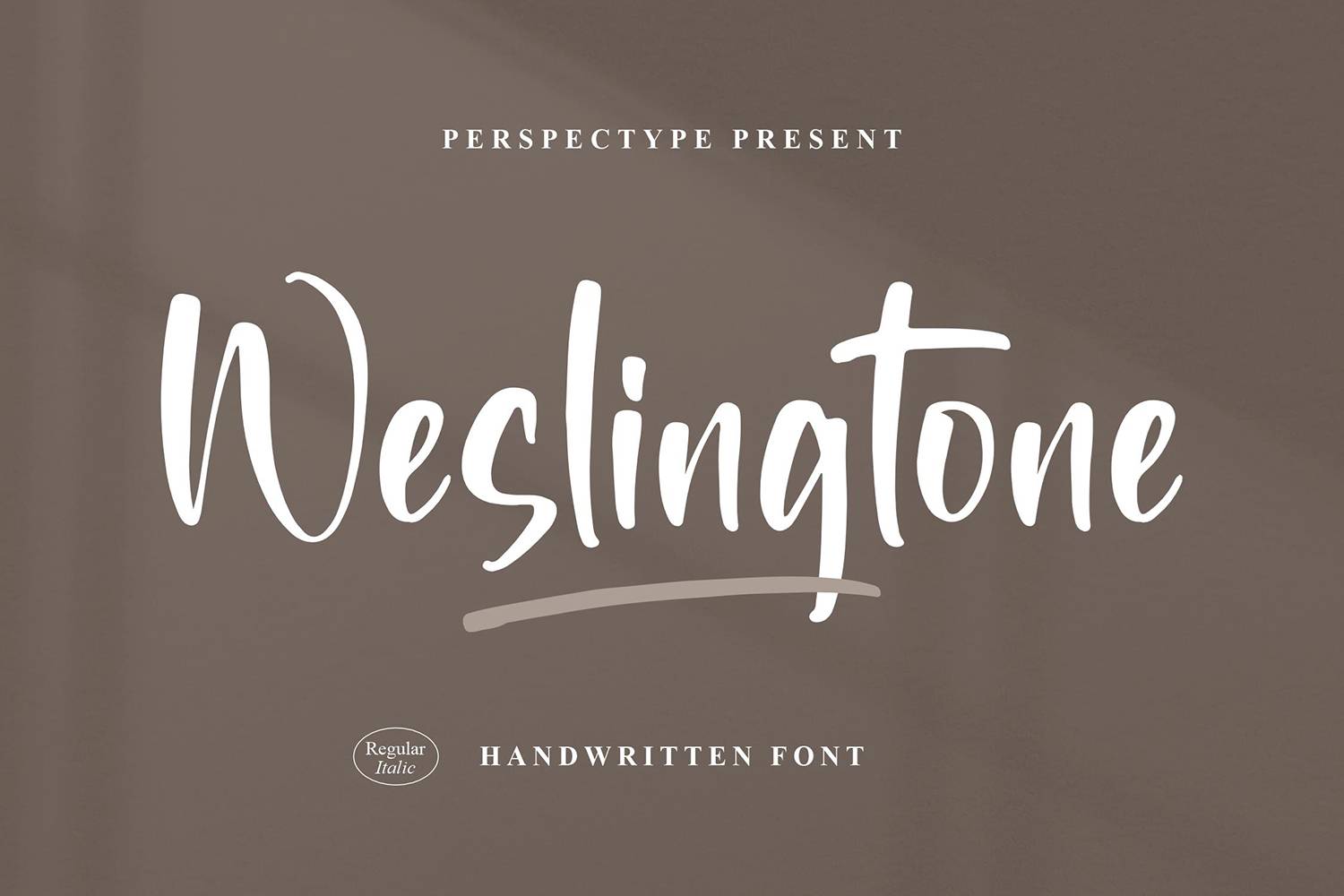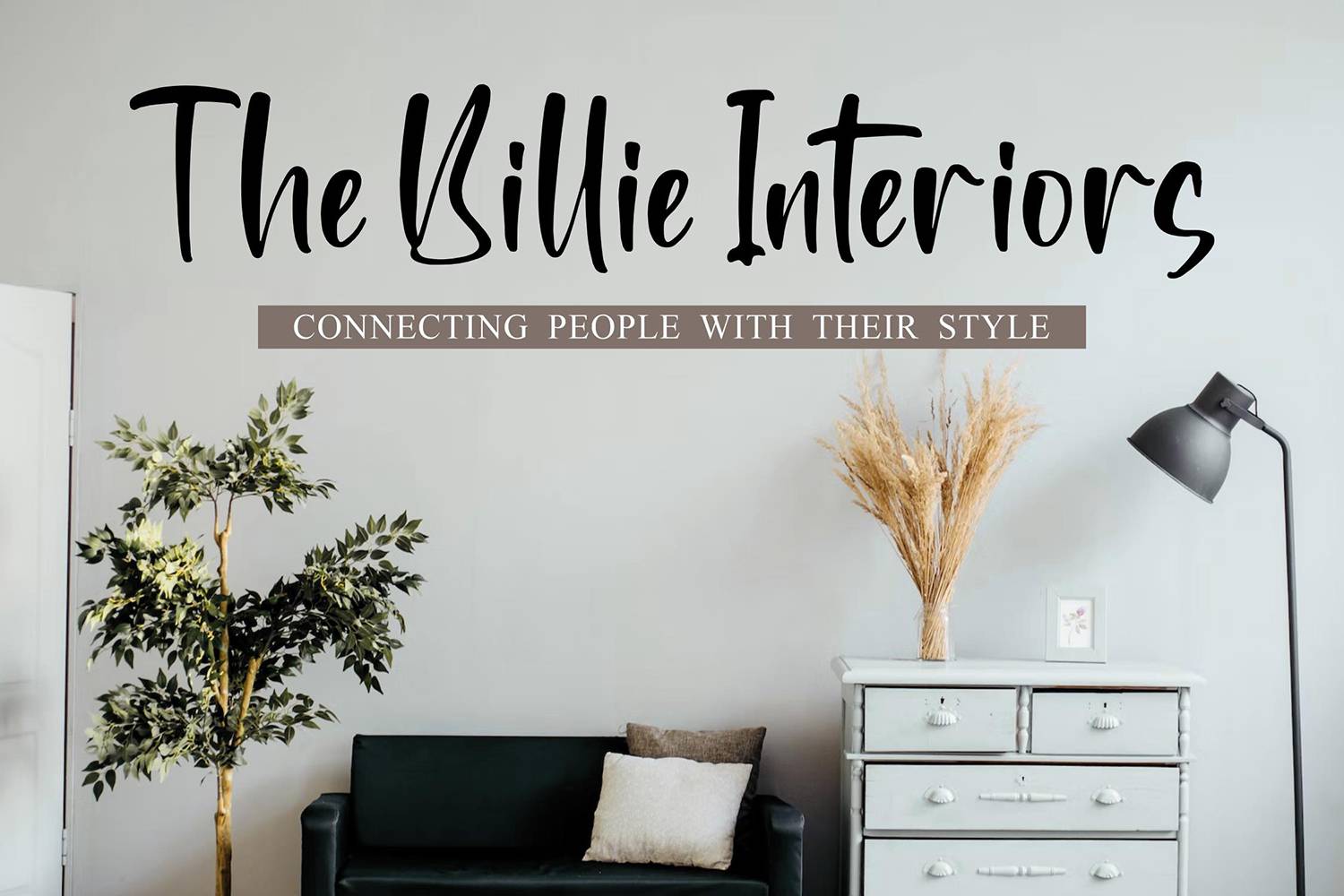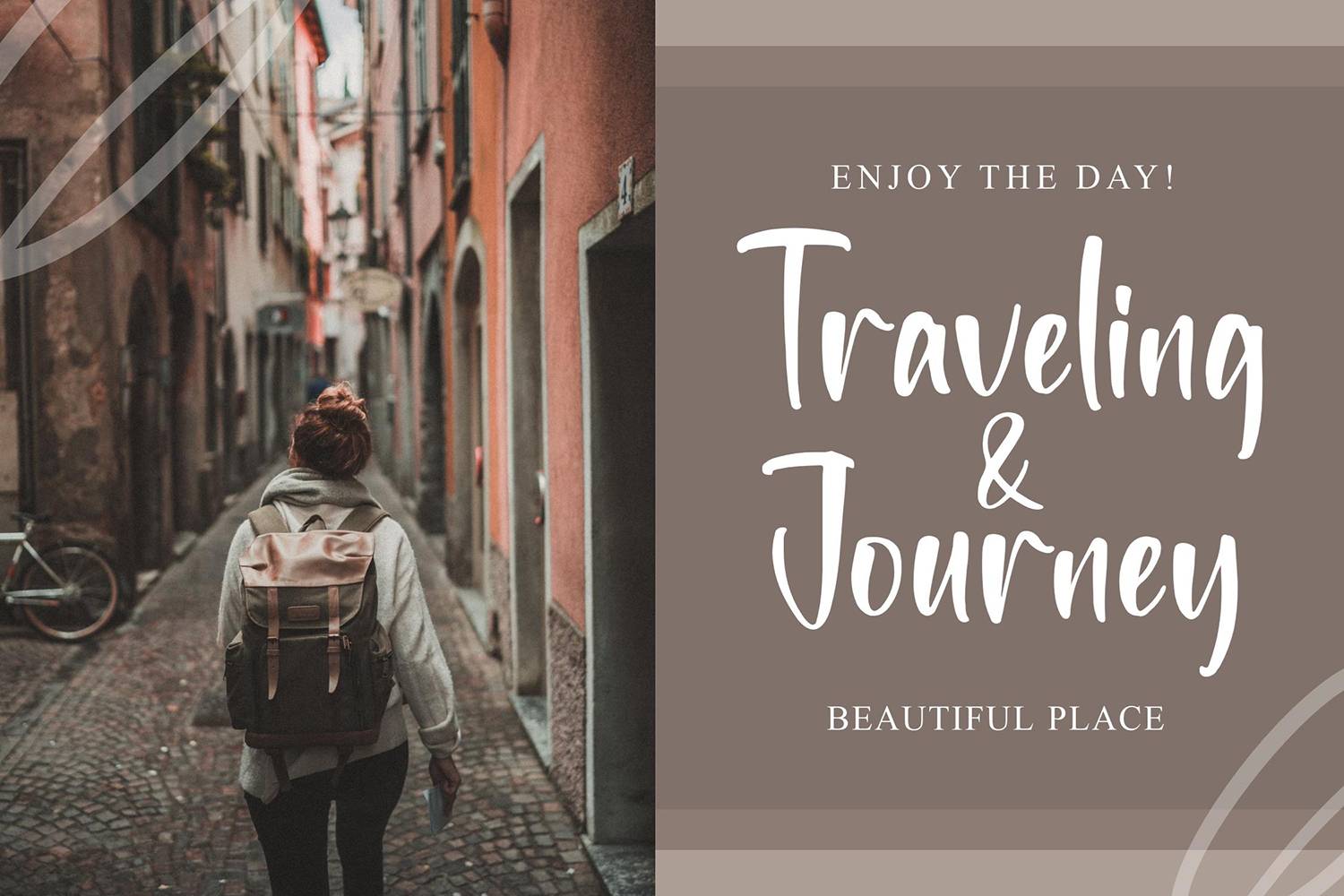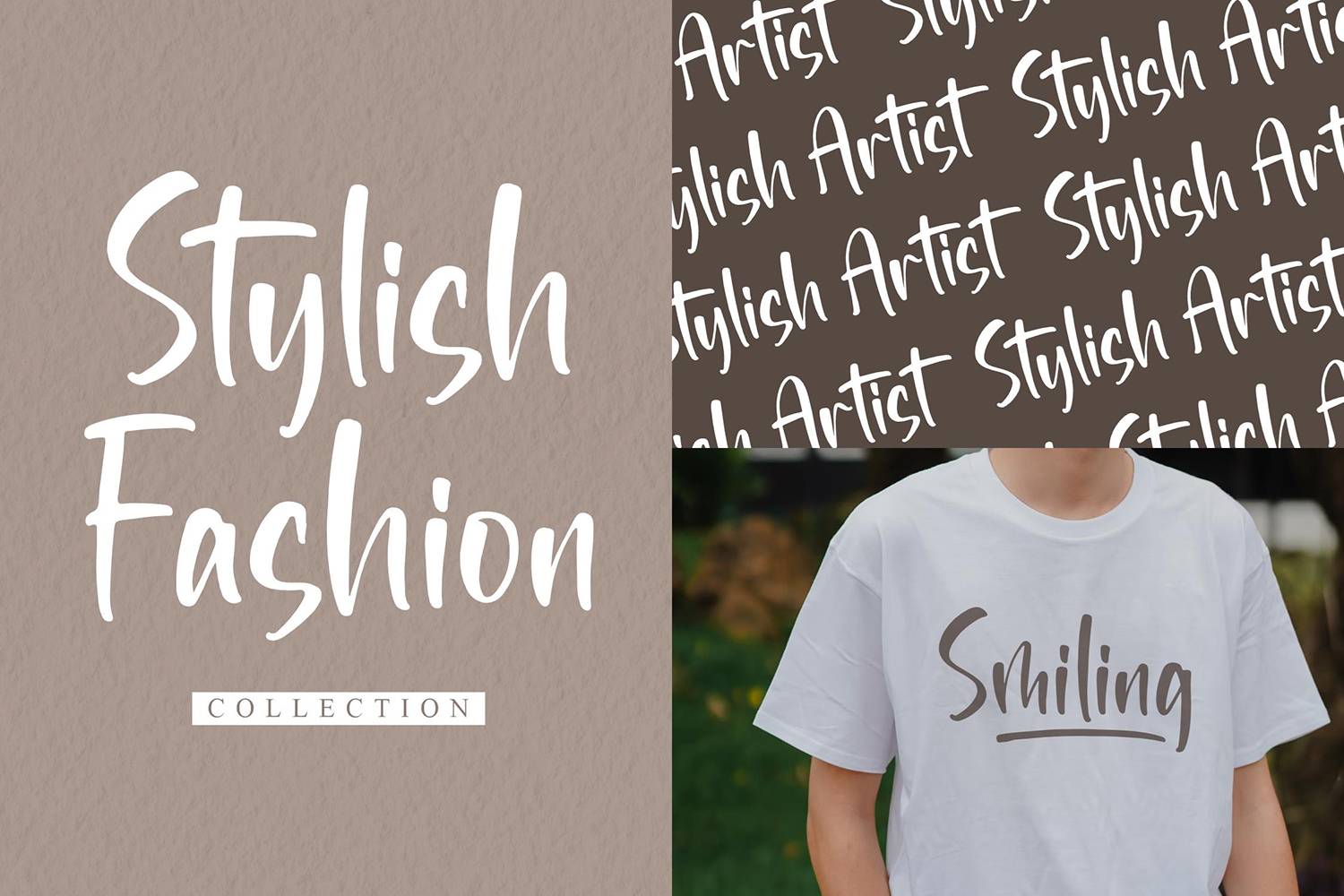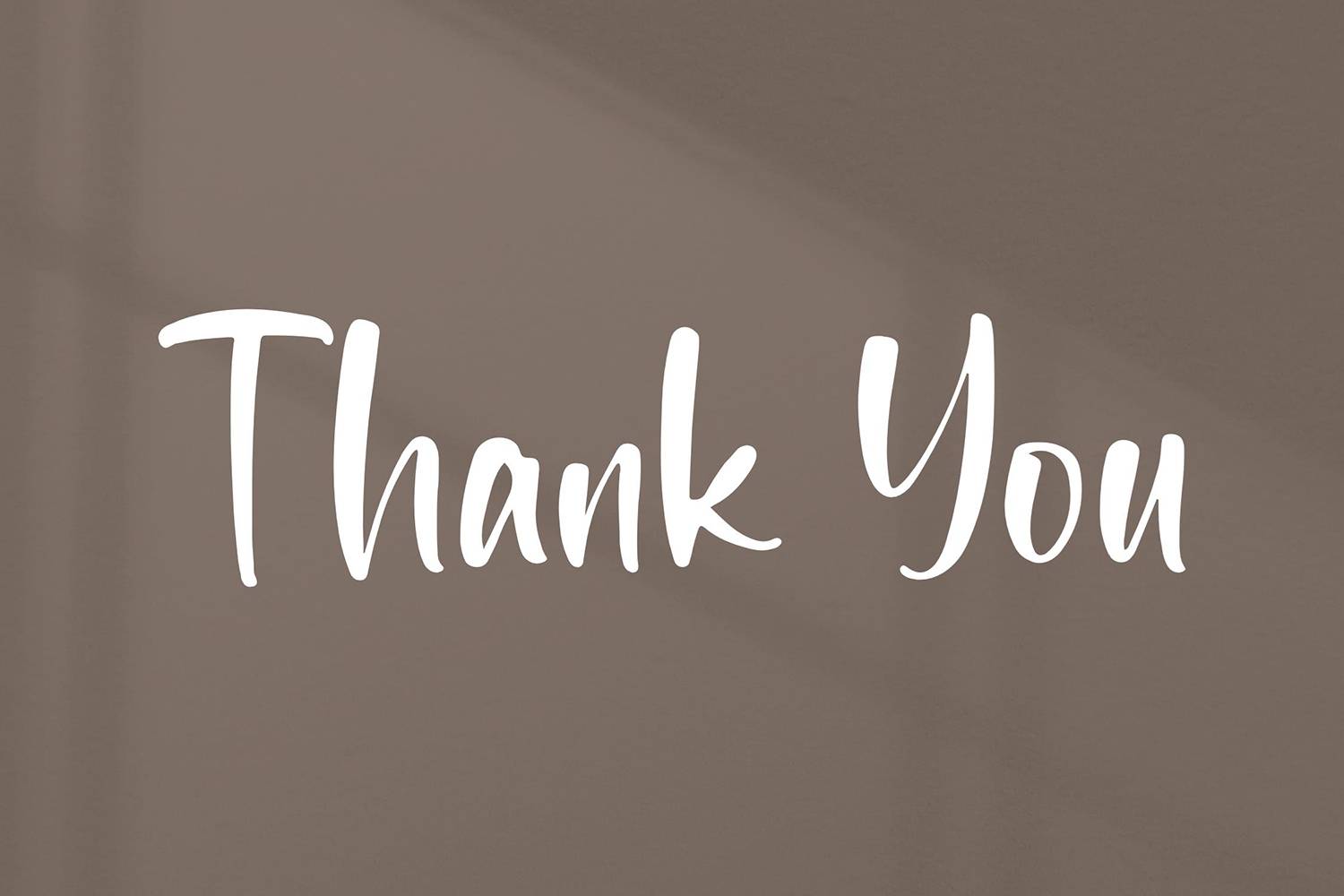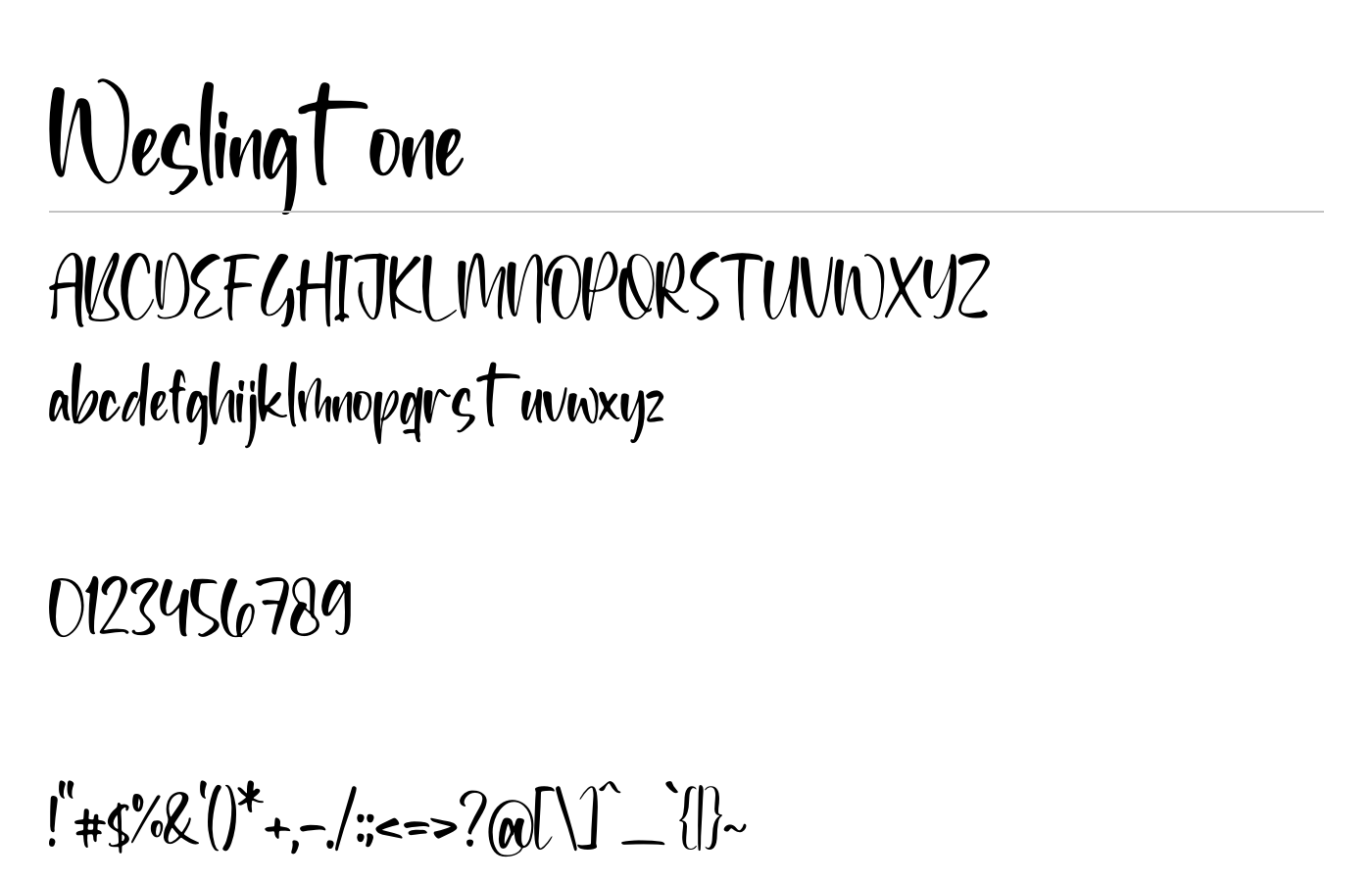
Weslingtone is a playful and casual handwritten script font with a lively, organic feel. Its tall, narrow letterforms with varying stroke widths and slightly irregular shapes give it a friendly, approachable personality, making it ideal for creative projects, invitations, and branding that seek a personal touch. This font works best in headings or short texts where its unique character can shine and add warmth and charm.
Weslingtone Font
About Weslingtone Font